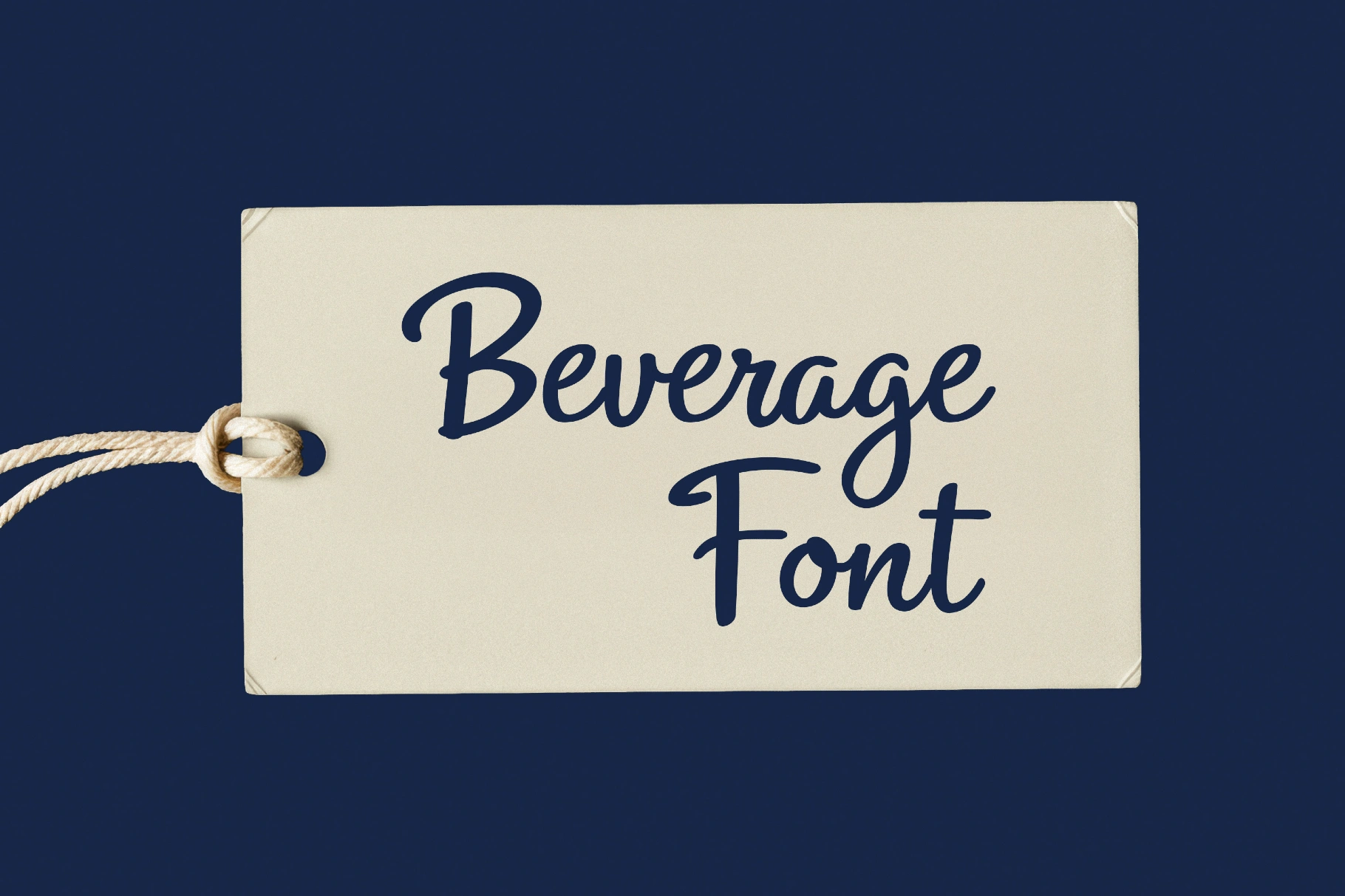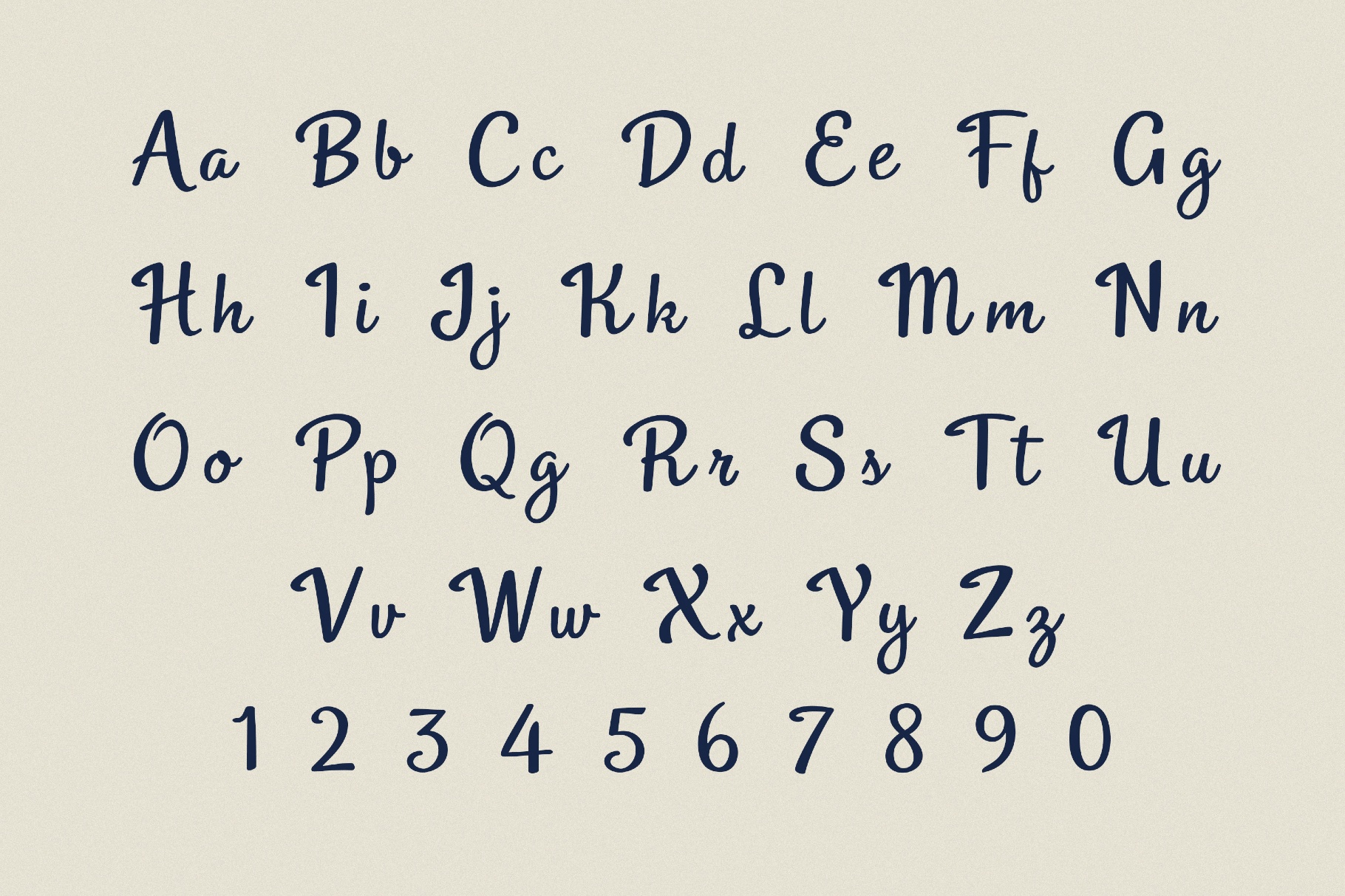
LT Beverage | Signature Font
A vintage sign-painter serif LT Beverage mixes sharp stems with rounded, convivial curves like in 1940s storefront lettering and classic glass-bottle labels. The crisp, high-contrast letterforms are perfect for beverage branding, can labels, restaurant menus, cocktail cards, café signage, editorial headlines, retro packaging, poster headlines, logo lockups, and merch graphics.
• Uppercase and lowercase letters.
• Numbers, punctuation, and symbols.
• Multilingual support across an extended Latin script.
• Ligatures.